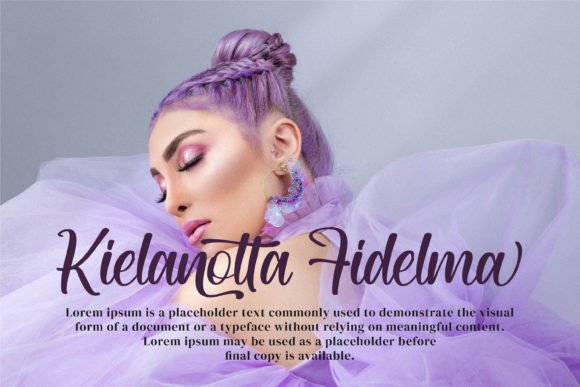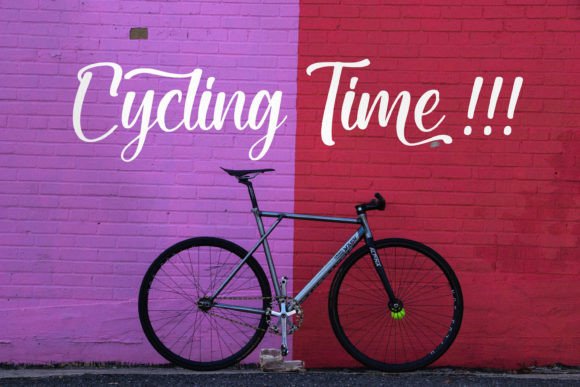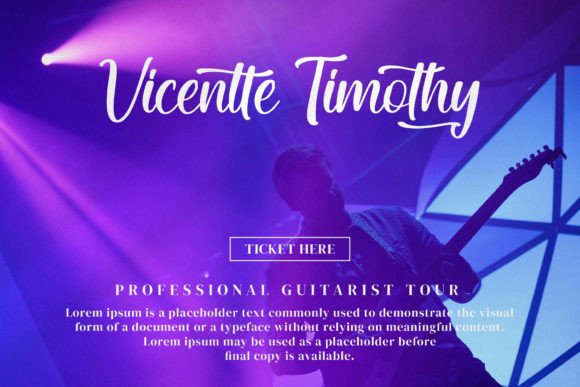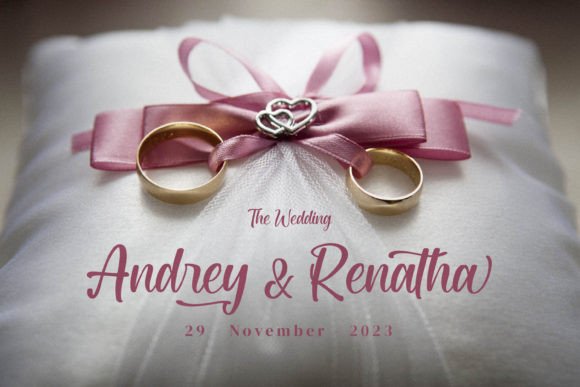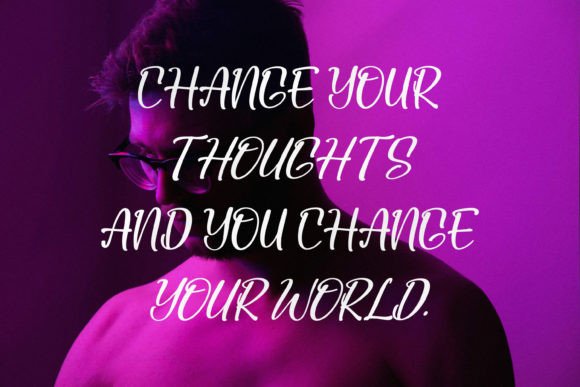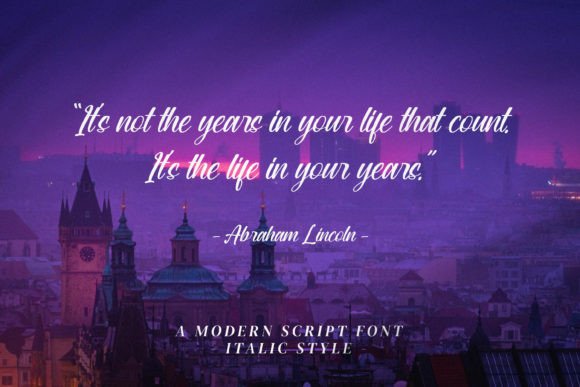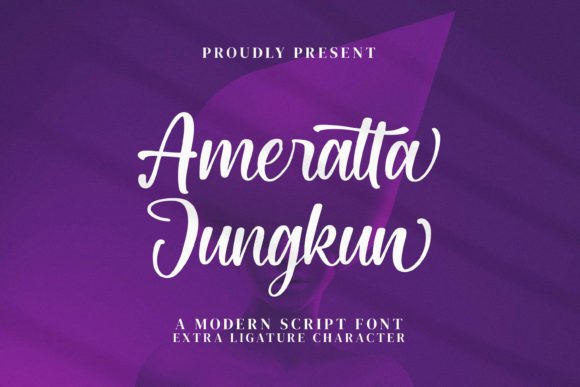
Introducing Ameratta Jungkun: The Romantic Calligraphy Font that Adds Luxury to Your Designs
Are you a designer or crafter looking for a font that can add a touch of elegance and sophistication to your projects? Look no further than Ameratta Jungkun, a romantic and sweet calligraphy typeface that is sure to make your designs shine. With its unique and flowing characters that dance along the baseline, Ameratta Jungkun is the perfect choice for anyone looking to add a luxury spark to their work.
What is Ameratta Jungkun?
Ameratta Jungkun is a beautifully crafted calligraphy font that features characters that are intricately designed to flow along the baseline. This unique design element gives the font a sense of movement and fluidity, making it perfect for designs that require a touch of elegance and sophistication. The font is ideal for use in a variety of design projects, including wedding invitations, branding materials, and packaging design.
Key Features of Ameratta Jungkun
So, what makes Ameratta Jungkun so special? Here are just a few of the key features that set this font apart:
- Romantic and Sweet Design: Ameratta Jungkun has a romantic and sweet design that is perfect for designs that require a touch of elegance and sophistication.
- Unique Characters: The font features unique characters that dance along the baseline, giving it a sense of movement and fluidity.
- Luxury Look and Feel: Ameratta Jungkun has a luxury look and feel that is perfect for high-end designs.
- Versatile: The font is versatile and can be used in a variety of design projects, including wedding invitations, branding materials, and packaging design.
How to Use Ameratta Jungkun in Your Designs
Using Ameratta Jungkun in your designs is easy. Here are a few tips to get you started:
- Pair it with a Simple Font: Pair Ameratta Jungkun with a simple font to create a beautiful contrast in your designs.
- Use it for Headings: Use Ameratta Jungkun for headings and titles to add a touch of elegance and sophistication to your designs.
Benefits of Using Ameratta Jungkun
So, why should you use Ameratta Jungkun in your designs? Here are just a few of the benefits of using this beautiful font:
- Adds Elegance and Sophistication: Ameratta Jungkun adds a touch of elegance and sophistication to any design project.
- Unique and Eye-Catching: The font is unique and eye-catching, making it perfect for designs that require a bit of flair.
- Luxury Look and Feel: Ameratta Jungkun has a luxury look and feel that is perfect for high-end designs.
In conclusion, Ameratta Jungkun is a romantic and sweet calligraphy typeface that is perfect for designers and crafters looking to add a touch of elegance and sophistication to their designs. With its unique and flowing characters that dance along the baseline, Ameratta Jungkun is sure to make your designs shine. Whether you’re working on a wedding invitation, branding materials, or packaging design, Ameratta Jungkun is the perfect choice for anyone looking to add a luxury spark to their work.